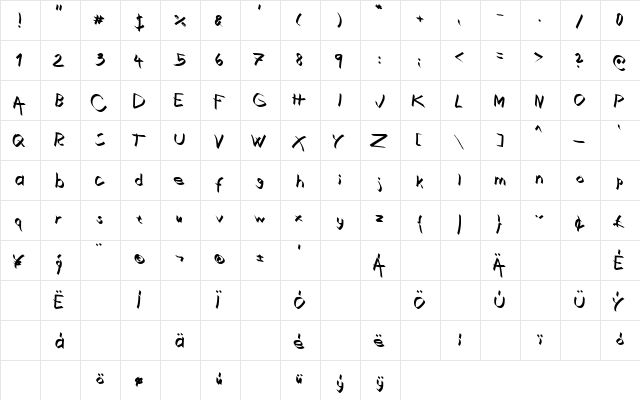
Xaligraphy Regular
| Designer | Zdenek Gromnica aka FutureMillennium |
Design Context for Xaligraphy Typeface
Xaligraphy is a composed and adaptable typeface that performs quietly and consistently across a wide range of design contexts.